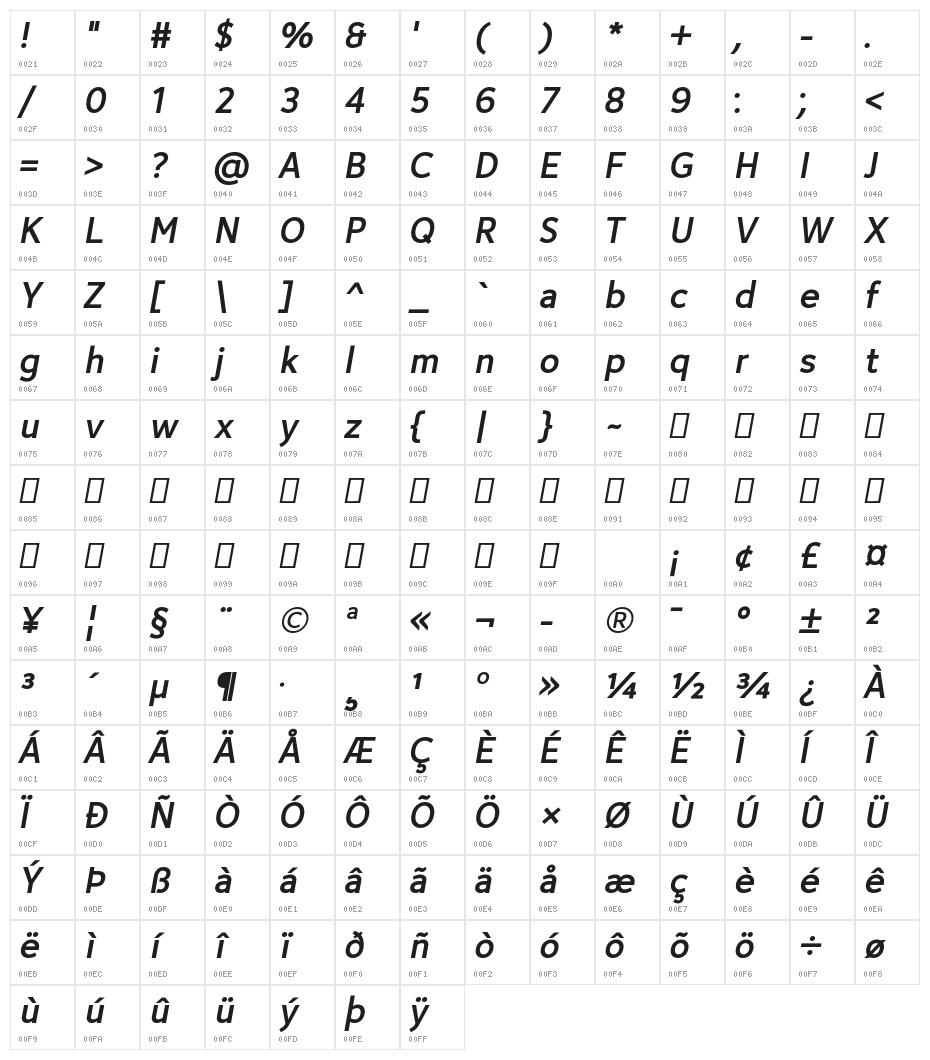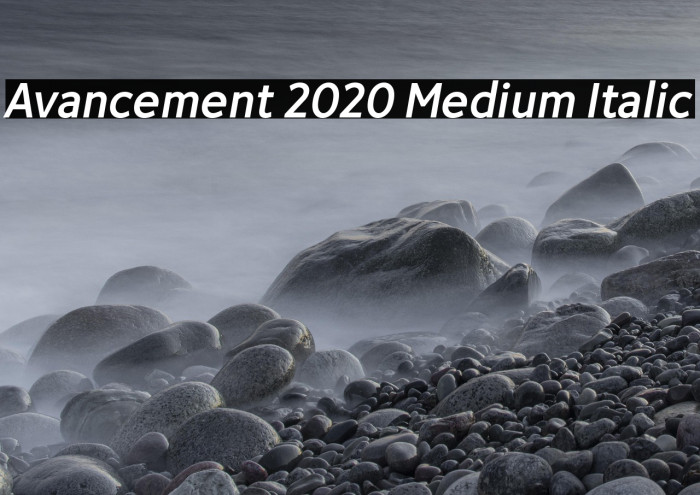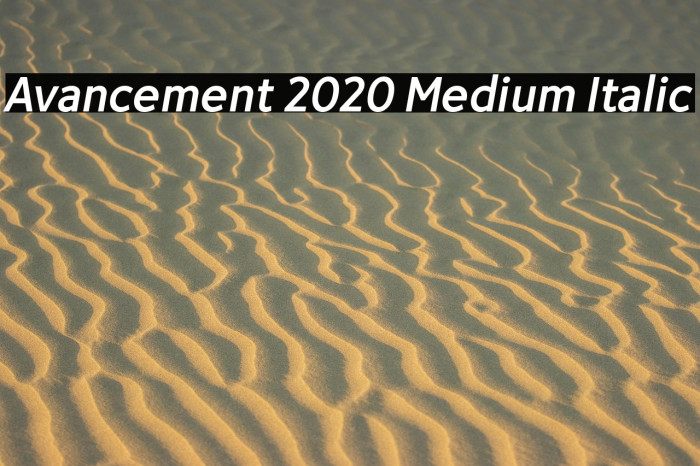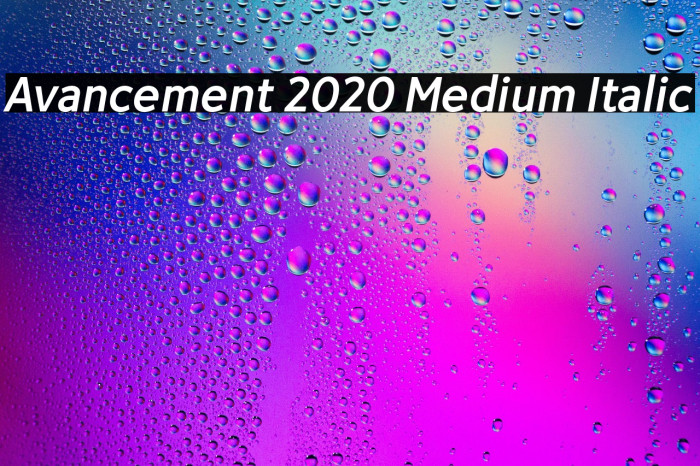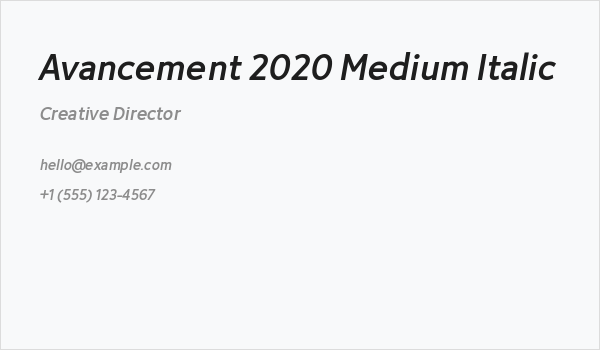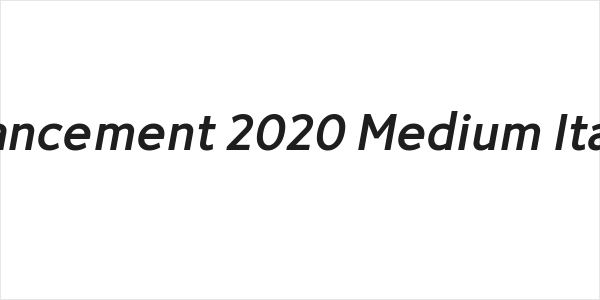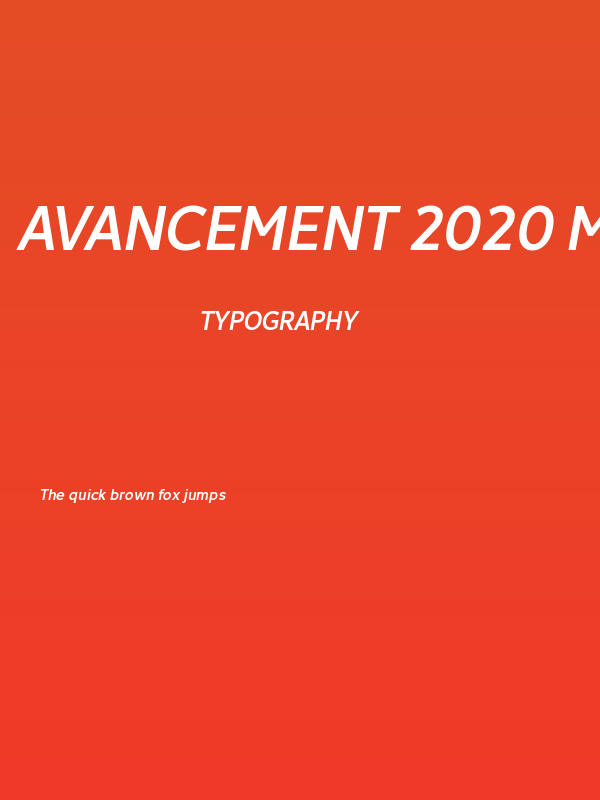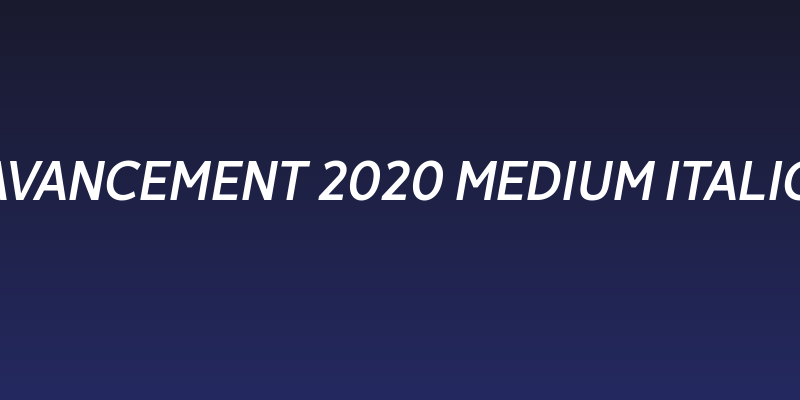
Avancement 2020 Medium Italic Font
Avancement 2020 Medium Italic Description
This font features a sleek and modern design with a subtle italic slant, giving it a dynamic and forward-moving appearance. The characters are well-proportioned, with a medium weight that provides a balanced presence on the page. The strokes are smooth and consistent, contributing to a clean and professional look. The uppercase letters are bold and commanding, while the lowercase letters maintain a friendly and approachable style. The numerals are clear and easy to read, making them suitable for various applications. The special characters are well-integrated, ensuring versatility in design projects.
| Proposed Projects | Ideal for branding, advertising, and editorial design projects where a modern and professional look is desired. |